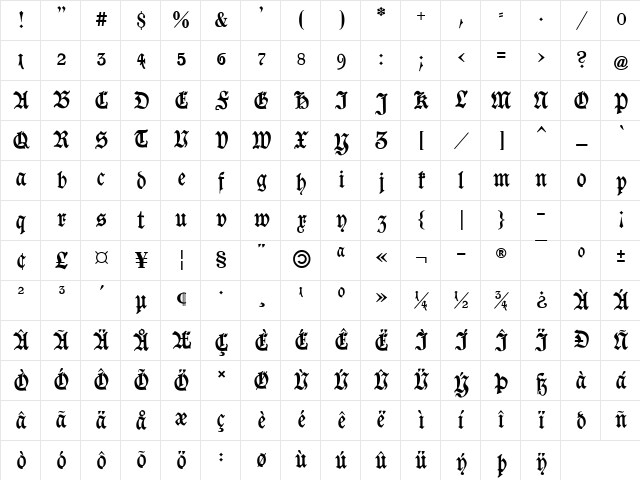
Complete Goeschen Fraktur UNZ1A Italic glyph index. Displaying only characters natively supported by Goeschen Fraktur UNZ1A Italic font.
Goeschen Fraktur UNZ1A draws on the rich tradition of blackletter calligraphy, with dense, angular strokes that evoke medieval manuscripts and old-world craftsmanship. The slanted form adds forward momentum and visual energy.